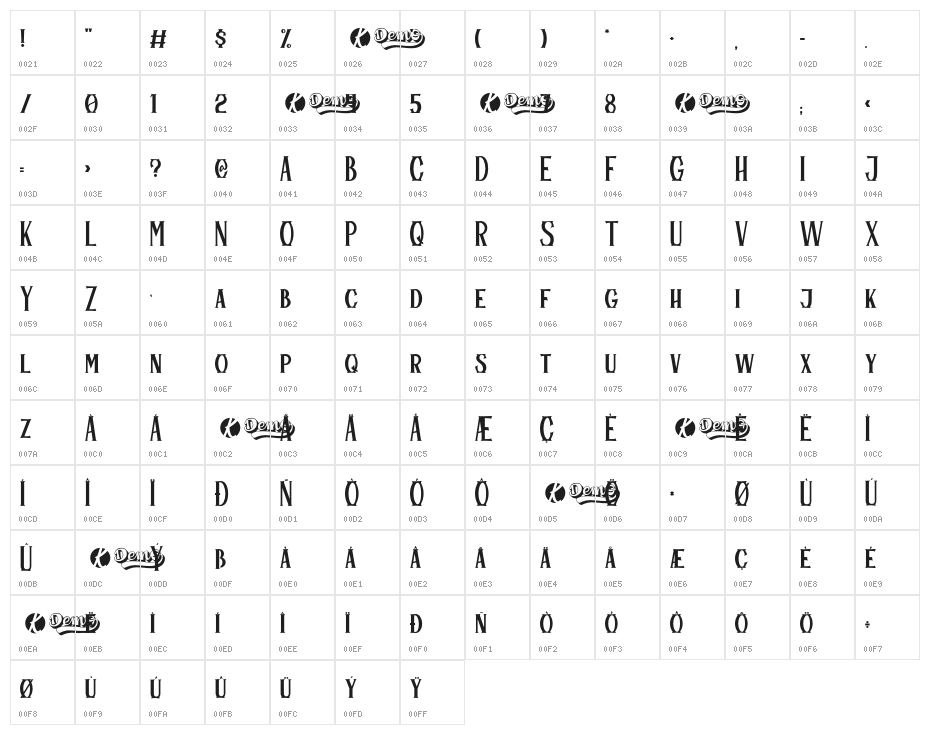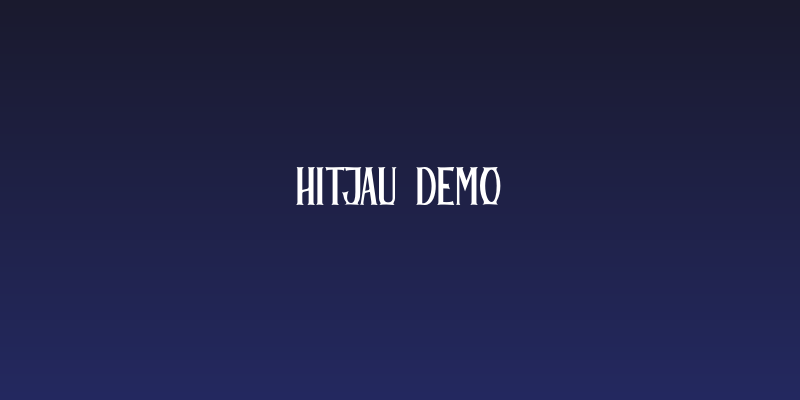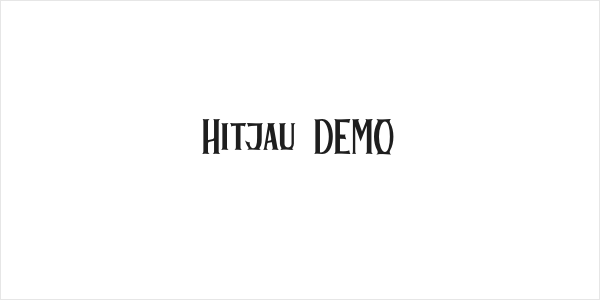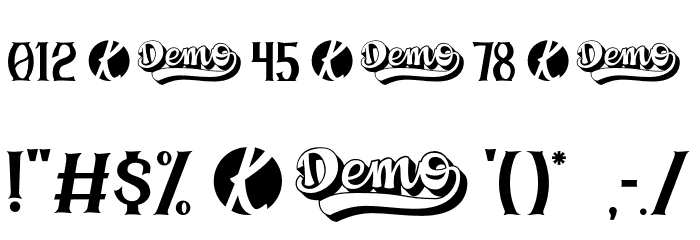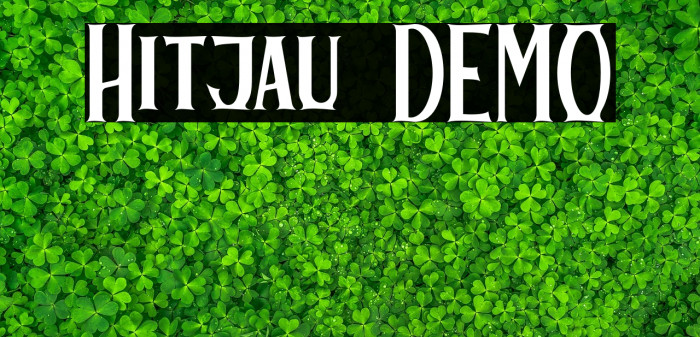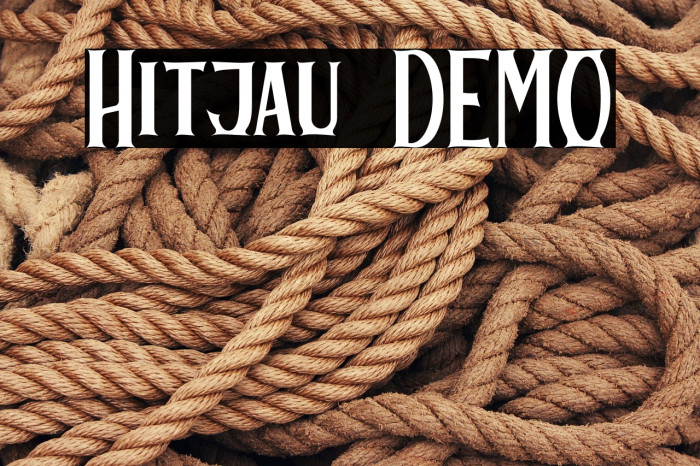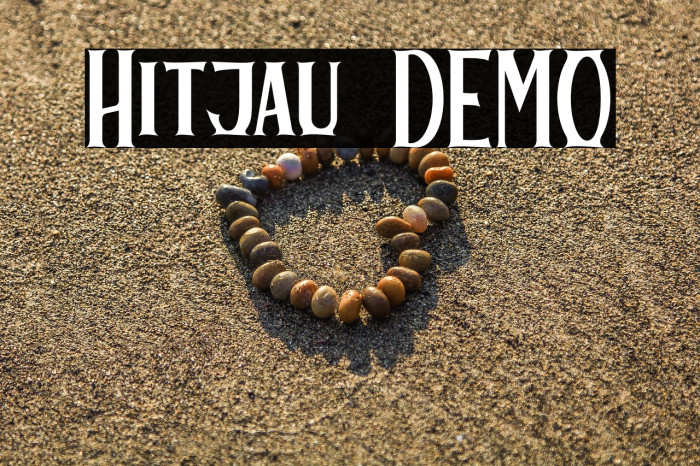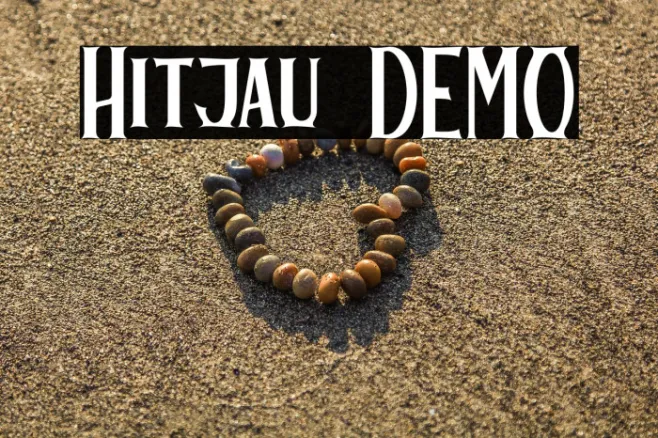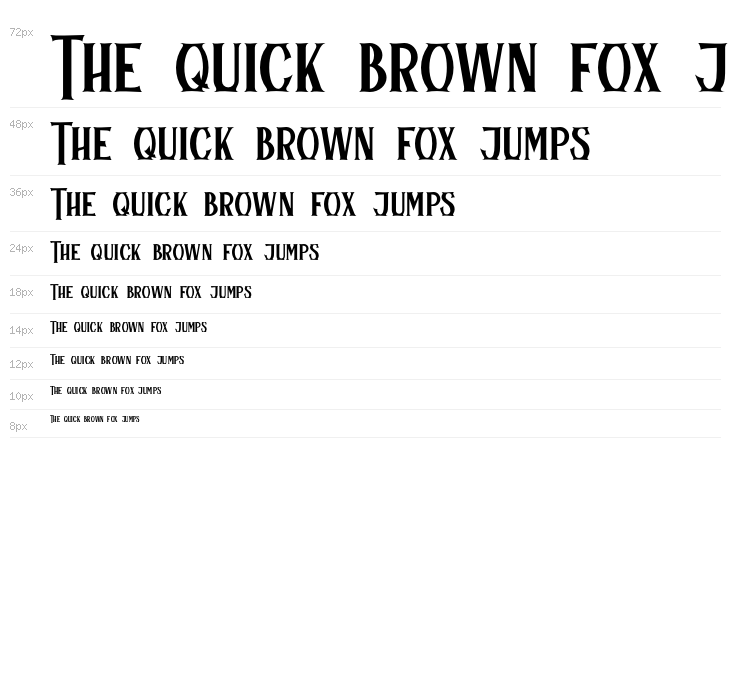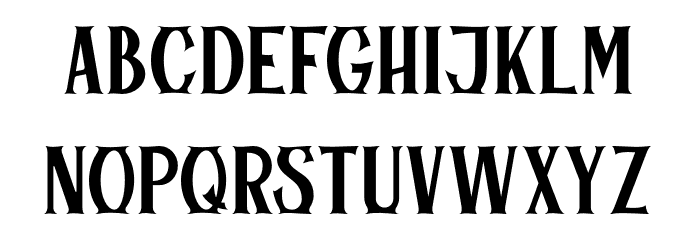
Hitjau DEMO Font
Hitjau DEMO Description
This font features a bold and dramatic style, characterized by its sharp, angular serifs and high contrast between thick and thin strokes. The uppercase letters are particularly striking, with a sense of movement and flair that makes them stand out. The lowercase letters maintain the same boldness, ensuring consistency across text. Numbers and special characters are designed with the same attention to detail, making them suitable for a variety of uses. The overall design is reminiscent of vintage signage or posters, offering a nostalgic yet powerful visual impact.
| Proposed Projects | Ideal for vintage-themed posters, branding, logos, and headlines that require a strong visual impact. |